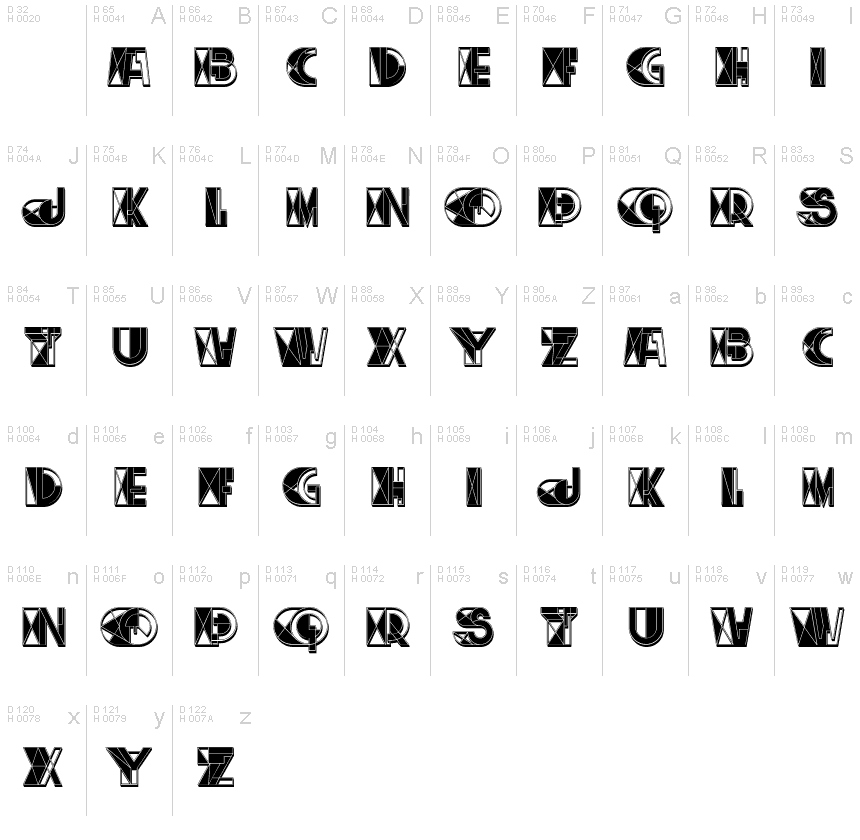
Mistic Orange Regular
Mistic Orange font is a bold decorative typeface designed by Vladimir Nikolic.
"Mistic" comes in Regular, 3D, and Orange versions!